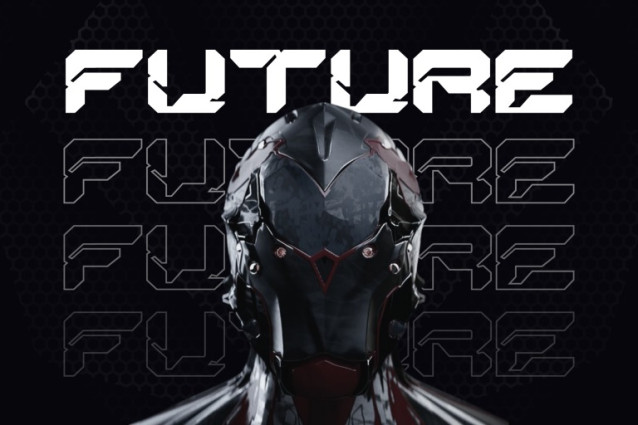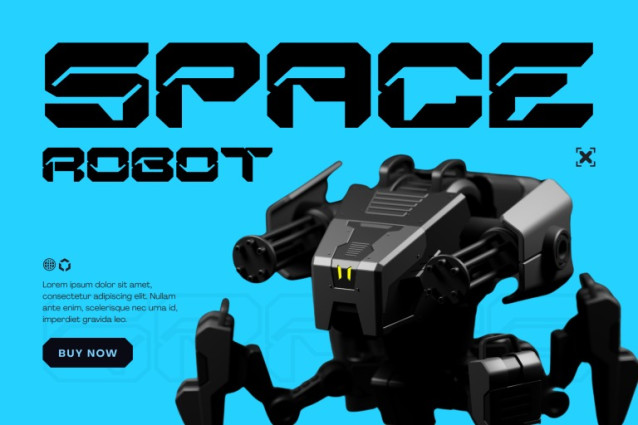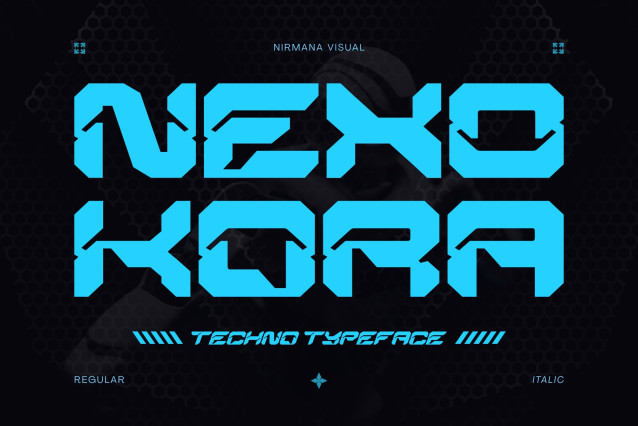
Nexokora Techno Font
Nexokora Techno Font is a modern, futuristic typeface built with a bold techno concept. Featuring both Regular and Italic styles, it delivers sharp precision and high-speed energy, perfect for standout logos and bold branding. With clean lines and a digital edge, Nexokora is ideal for tech, esports, and innovation-driven designs—bringing a sleek, modern vibe to every project with power, style, and motion.